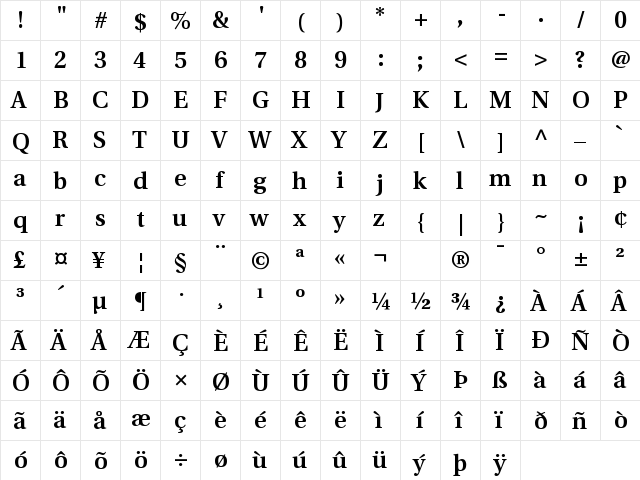
UnBatang Bold Font Preview
UnBatang Bold
UnBatang Bold Font Details
| Foundry | Korean Tex Users Group |
| Designer | Koaunghi Un |
Design Context for UnBatang Typeface
UnBatang takes a measured approach to typography — its balanced proportions and neutral character make it a reliable workhorse for both digital and print work. Its bold stroke weight gives it real presence on the page.
Pro Tip: Use UnBatang in both headline and body roles to test its range before committing to a single application.